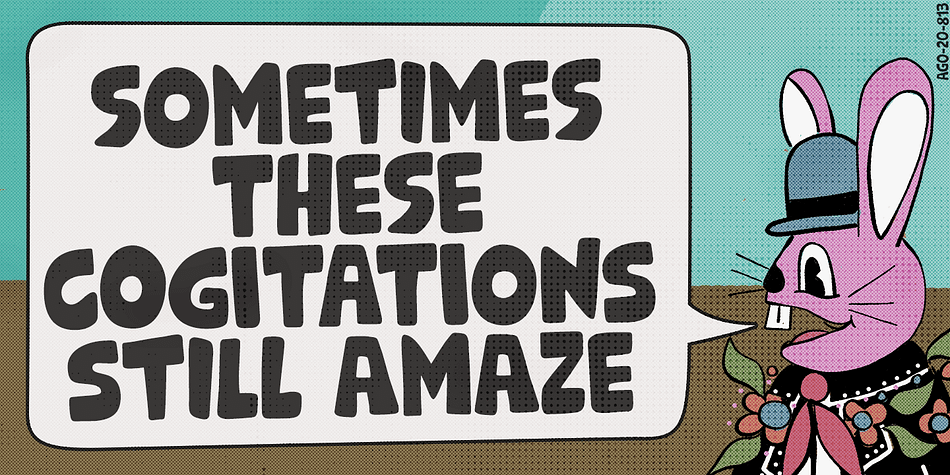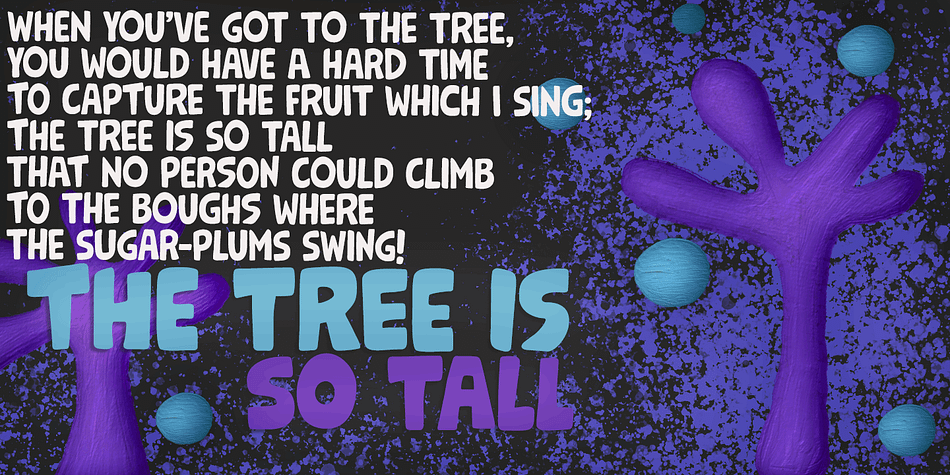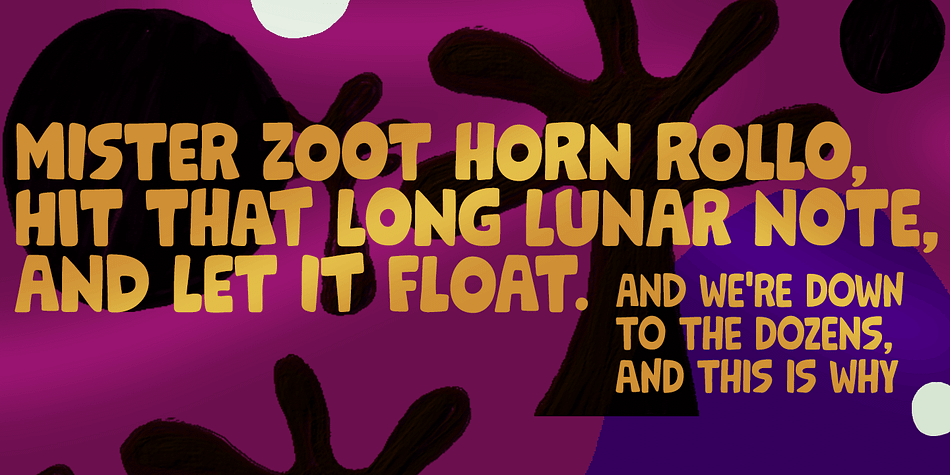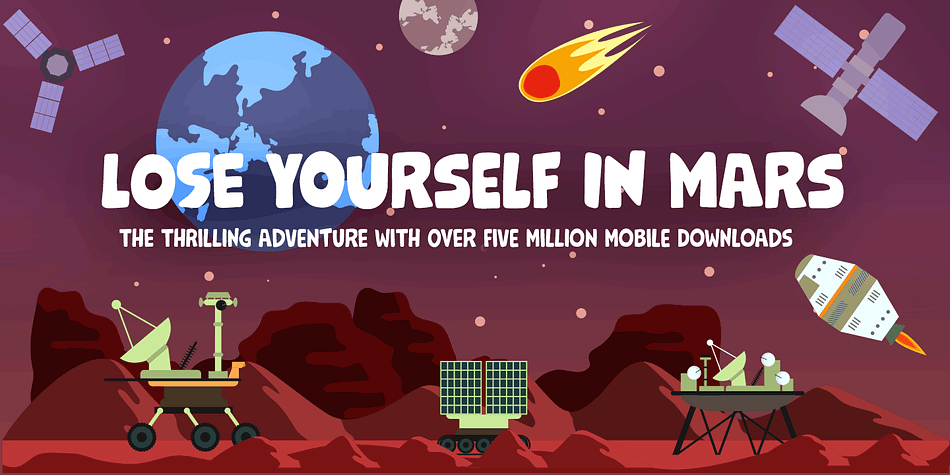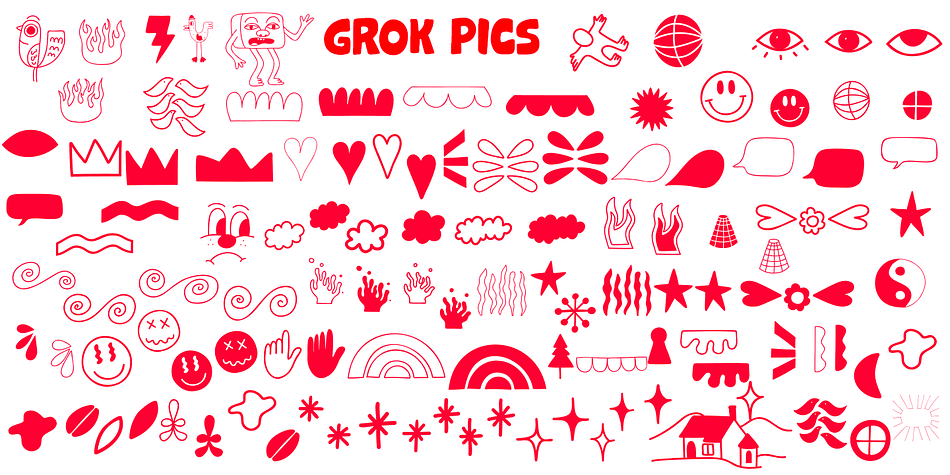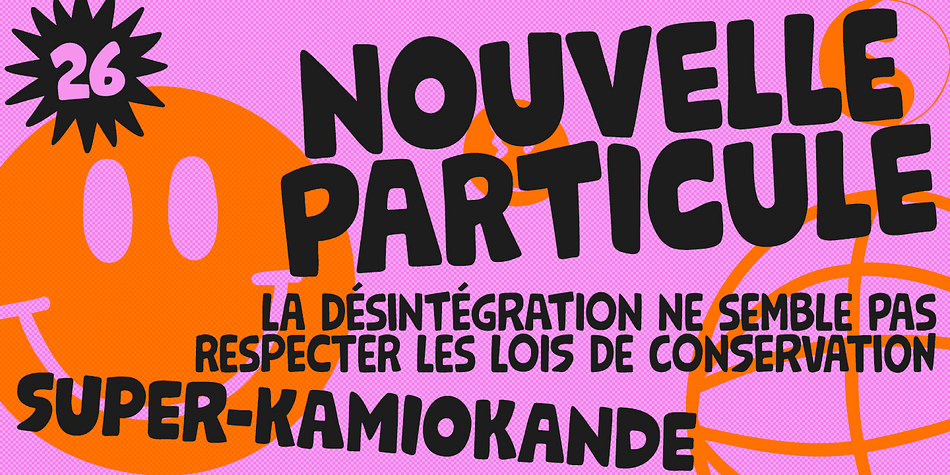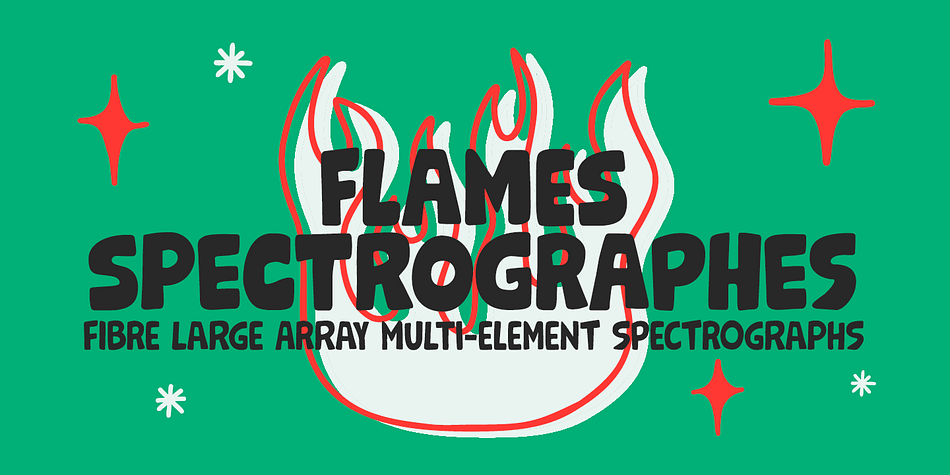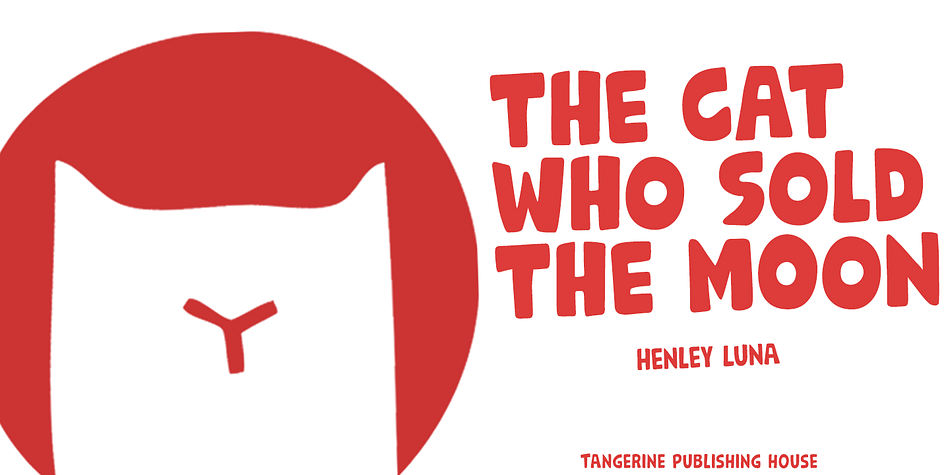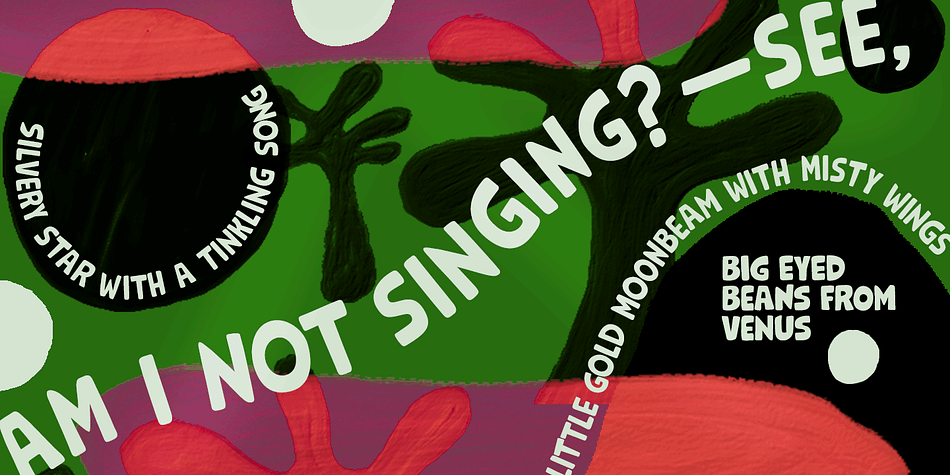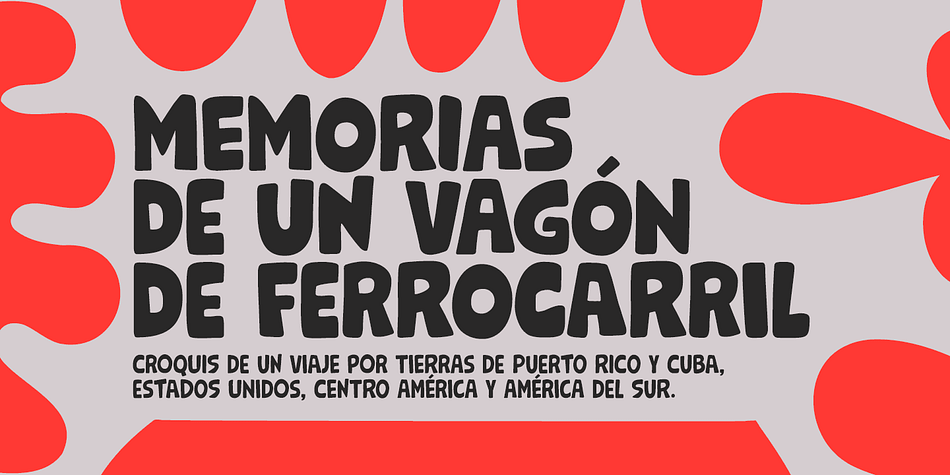
Designed by Ricardo Marcin and Erica Jung, Grok is a hand display and dingbat font family. This typeface has three styles and was published by PintassilgoPrints.
Bold as love, Grok is a hand-drawn typeface, assertive but soft. Showy and friendly.
It’s an all caps font with 2 choices for each letter, accessible via keyboard upper and lower case slots. For that handcrafted look, you know. Turn on the contextual alternates feature to automatically alternate these.
Grok comes in two cuts: bold and… less-bold :) There’s yet a nifty picture font with dozens of dingbats to beautify your words every now and then.
Perfectly suited for any display use: packaging, signage, web, editorial design, book covers – and not-only-covers. Grok it?